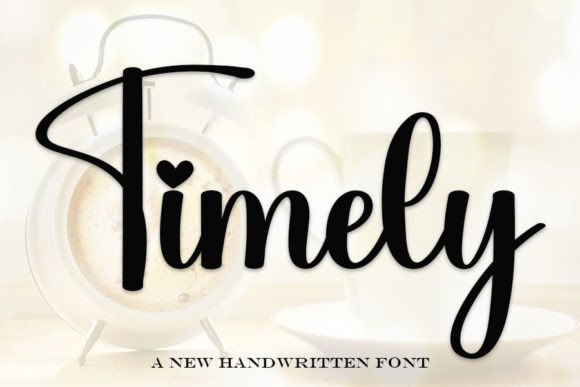
Step into the world of Timely Font, a captivating script font family that will leave you spellbound. Its elegant curves and graceful lines will transport you to a realm of timeless beauty, perfect for your most cherished creative endeavors.
With Timely Font, your words will dance across the page like a symphony of ink. Its intricate details and delicate flourishes evoke a sense of nostalgia, while its modern aesthetic ensures your designs remain fresh and relevant.
Unleash your imagination and let Timely Font guide you on an artistic journey. Create stunning logos that exude sophistication, design eye-catching posters that captivate your audience, or craft enchanting invitations that leave a lasting impression. The possibilities are endless with this versatile font family.
It's time to elevate your designs and leave an indelible mark on the world. With Timely Font, you have the power to transform ordinary words into captivating masterpieces. Embrace the beauty of handwritten elegance and watch as your creations come to life with unparalleled charm.